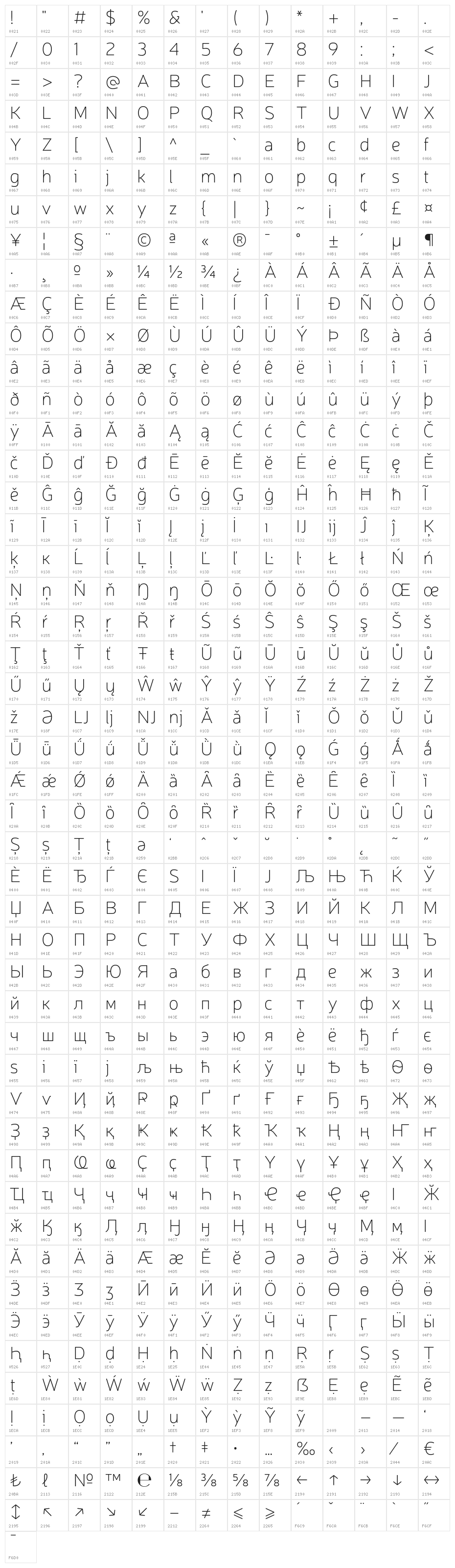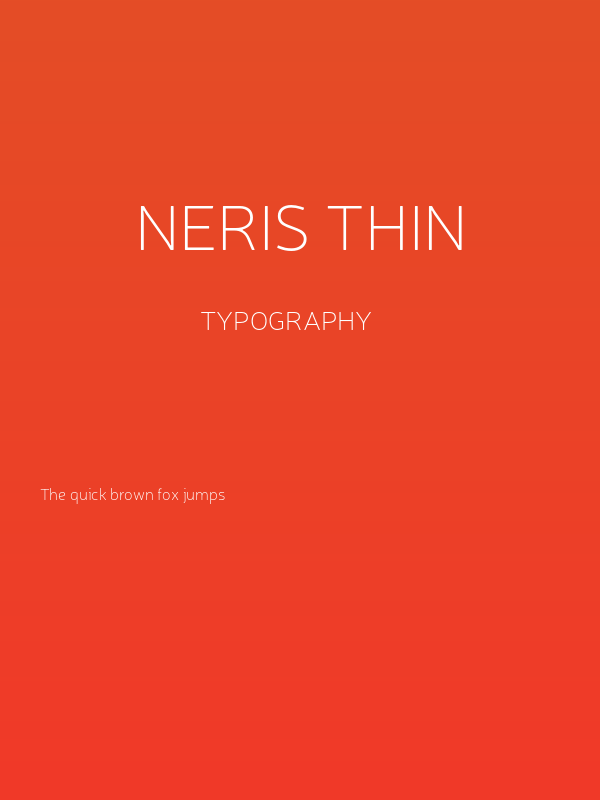
Neris Thin Font
Neris Thin Description
This typeface features a clean and modern design with a minimalist aesthetic. Its thin strokes and geometric shapes give it a sleek and contemporary appearance. The characters are well-proportioned, with a uniform stroke width that enhances readability. The uppercase letters are slightly taller than the lowercase, providing a subtle contrast that adds to its elegance. The numerals are clear and distinct, making them easy to read. Special characters are included, maintaining the font's cohesive style. Overall, this font is versatile and suitable for a variety of design applications.
| Proposed Projects | Ideal for branding, digital interfaces, minimalist designs, and editorial layouts. |